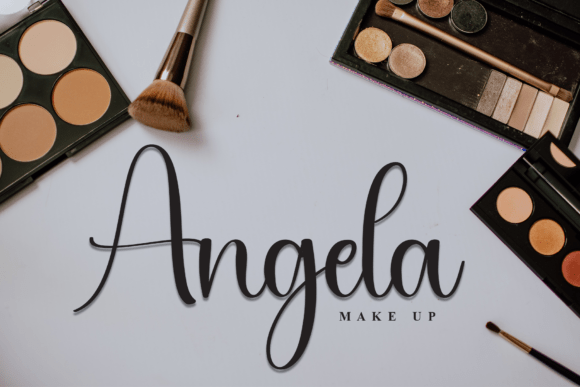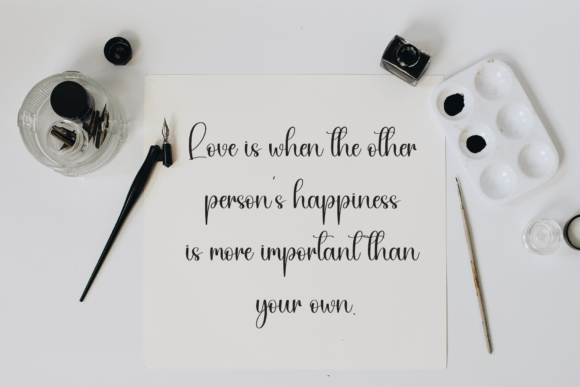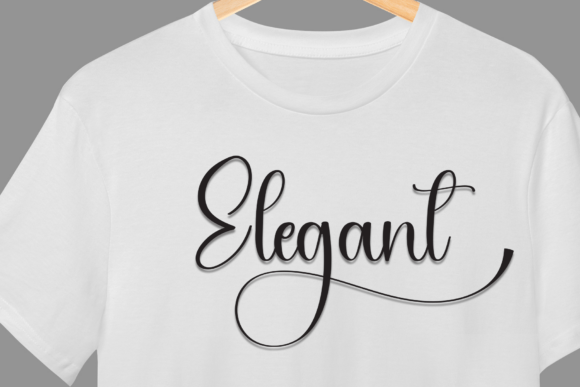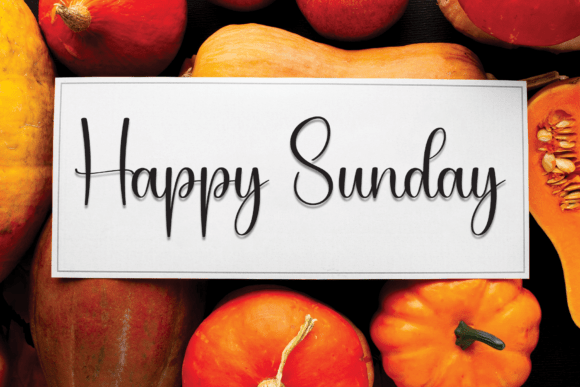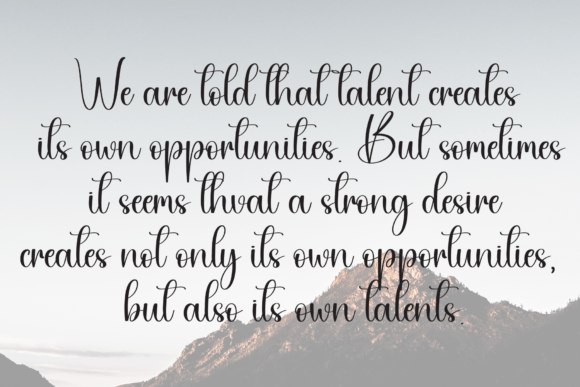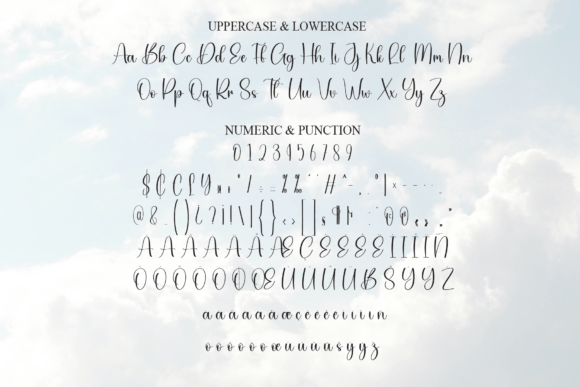
Discover the Elegance of Brightons Font: A Stylish Handwritten Script Font
In the world of typography, a well-chosen font can elevate a project from ordinary to extraordinary. For designers and crafters seeking a typeface that exudes elegance and modernity, Brightons Font is an exceptional choice. This stylish handwritten script font seamlessly blends sophistication with a contemporary flair, making it perfect for a variety of creative endeavors.
The Characteristics of Brightons Font
Brightons Font is distinguished by its flowing strokes and organic curves, which impart a sense of warmth and refinement to any project. Its handwritten nature gives it a personal touch, while its elegant and modern design ensures it remains versatile and sophisticated. This font is meticulously crafted to bring a sense of luxury and charm to your designs, making it an excellent choice for:
- Branding: Establish a strong brand identity with a font that communicates elegance and sophistication.
- Invitations: Create stunning invitations for special occasions, such as weddings, galas, and corporate events.
- Social Media: Elevate your social media presence with eye-catching graphics and posts that showcase your unique style.
What Makes Brightons Font Stand Out?
Several key features make Brightons Font a standout choice for designers and crafters:
- Unique Letterforms: Each letter is carefully designed to contribute to the overall flow and harmony of the text, ensuring a beautiful reading experience.
- Versatility: Brightons Font can be used in a variety of contexts, from digital media to print materials, without losing its appeal.
- Elegance and Modernity: The font strikes a perfect balance between classic elegance and modern simplicity, making it suitable for a wide range of projects.
- Easy to Read: Despite its elegant and cursive nature, Brightons Font remains highly legible, ensuring your message is conveyed clearly and effectively.
How to Use Brightons Font Effectively
To maximize the impact of Brightons Font, consider the following tips:
- Pair with Complementary Fonts: For optimal results, pair Brightons Font with clean, sans-serif fonts to create a striking contrast that highlights its unique features.
- Adjust Size and Color: Experiment with different sizes and colors to ensure the font complements your overall design and effectively communicates your message.
- Consider the Context: Tailor your use of Brightons Font to the specific project or audience, adjusting the style and tone as needed to achieve the desired effect.
Brightons Font is a stylish and versatile handwritten script font that brings a touch of elegance and modernity to any project. Its unique letterforms, flowing strokes, and organic curves make it an excellent choice for designers and crafters looking to add a personal and refined touch to their work. Whether you’re creating branding materials, invitations, or social media content, Brightons Font is sure to impress with its effortless charm and sophistication.
Embrace the beauty and versatility of Brightons Font in your next creative endeavor. With its ability to elevate your designs and communicate your unique style, this font is poised to become a staple in your typographic arsenal.